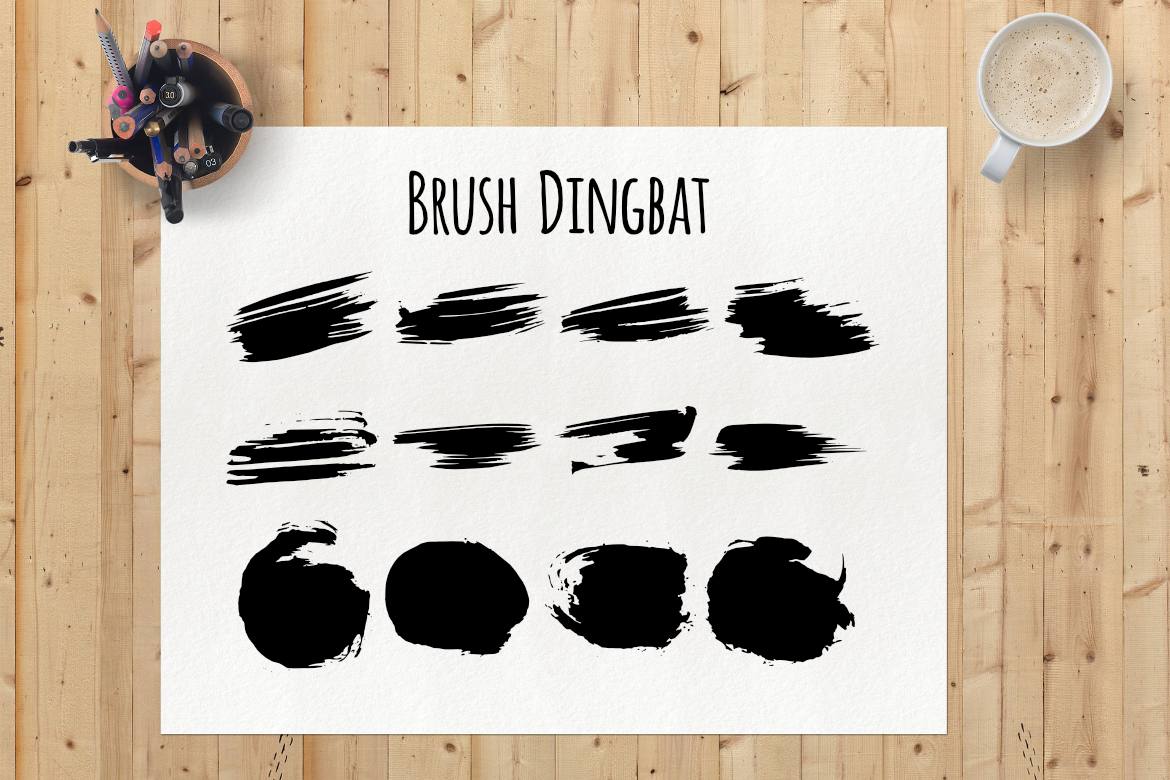
Brush Dingbat Font
About Brush Dingbat Font
Introducing the Brush Dingbat Font: Anchoring Your Designs with Cute and Fun Design Assets!
Are you looking to add a touch of whimsy and playfulness to your designs? Look no further than the Brush Dingbat Font! This adorable and versatile dingbat set is the perfect way to anchor your designs with stunning and well-crafted design assets.
The Brush Dingbat Font features a collection of cute and fun brush-stroke-inspired icons and illustrations that are sure to captivate your audience. From doodles and symbols to decorative elements and borders, this font has it all. Each dingbat is carefully crafted with a brush-like texture, giving your designs a handcrafted and artistic feel.
With this dingbat font, you can easily incorporate these charming design assets into a variety of projects. Whether you’re working on invitations, greeting cards, posters, social media graphics, or any other creative endeavor, the Brush Dingbat Font will provide you with a wide range of options to choose from.
Using the font is as simple as typing a letter or a symbol on your keyboard. Each character corresponds to a unique dingbat, allowing you to quickly and effortlessly add these cute and fun elements to your designs. And with the ability to resize, rotate, and customize them to suit your needs, you have complete creative freedom to make your designs truly unique.
Whether you’re a professional designer or a creative enthusiast, the Brush Dingbat Font is a valuable asset in your design toolkit. It saves you time and effort by providing a ready-to-use set of design elements that can instantly enhance the appeal of your projects.
So, don’t miss out on the opportunity to anchor your designs with cute and fun design assets. Grab the Brush Dingbat Font and let your creativity run wild as you create stunning and well-crafted designs that are sure to leave a lasting impression on your audience.